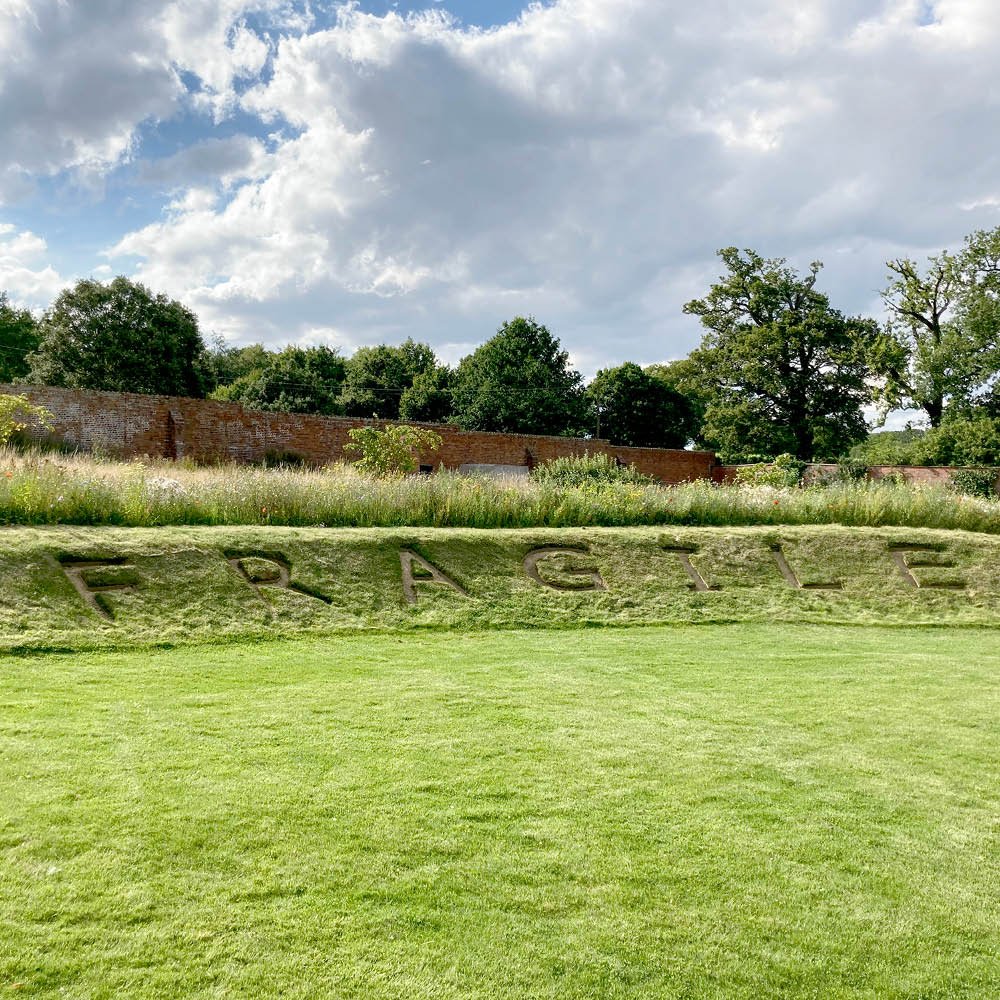
Fragile by David Crowe
Turf and chalk
This work was originally designed for installation at our first ever exhibition, at West Dean Gardens and Arboretum in West Sussex. However, as this is sited on rare chalk downland, the turf could not be removed. We are delighted to have the opportunity to create the idea here at Grimsthorpe.
“The idea for the word ‘fragile’ being carved into the earth harks back to a time when people and their environment had a close understanding. It reminds us that we should treat the natural world with the same care as we would some precious man-made object. The idea focuses on the use of heavy, san-serif lettering, like that found on ‘HANDLE WITH CARE’ parcel tape.”